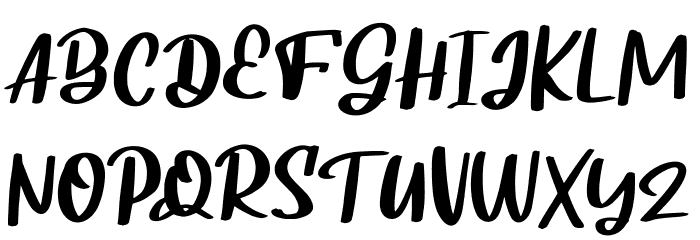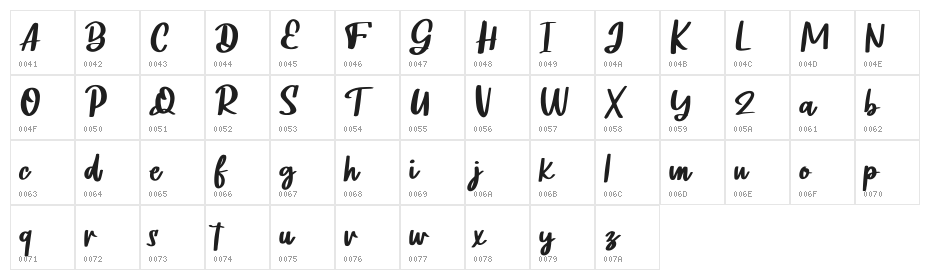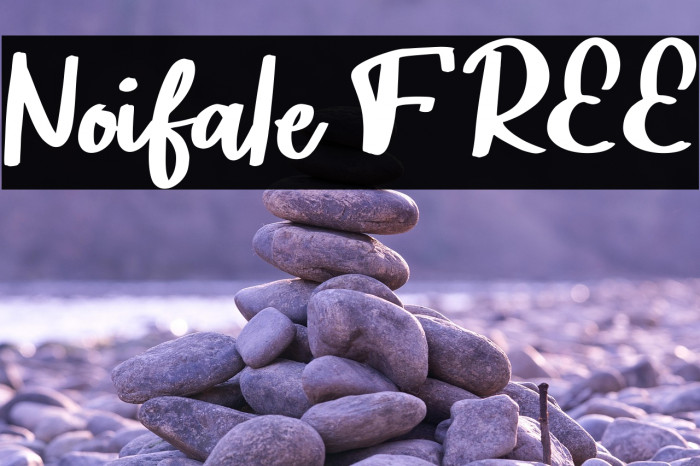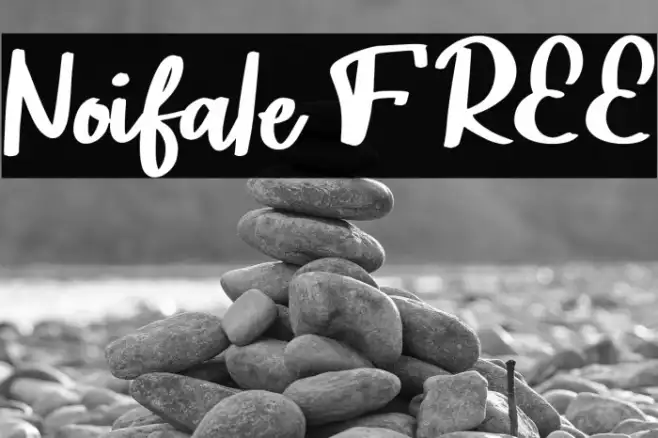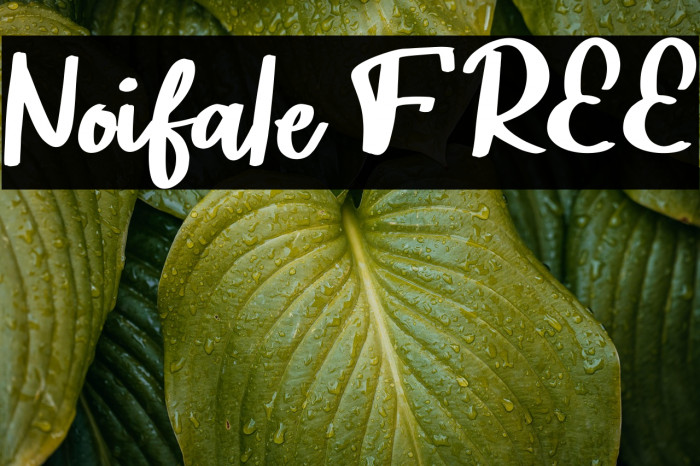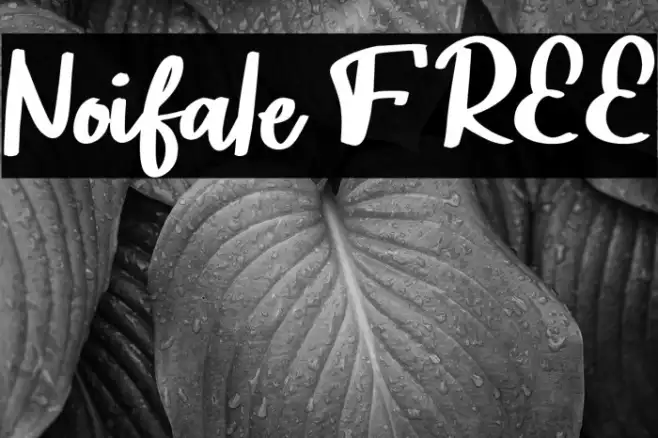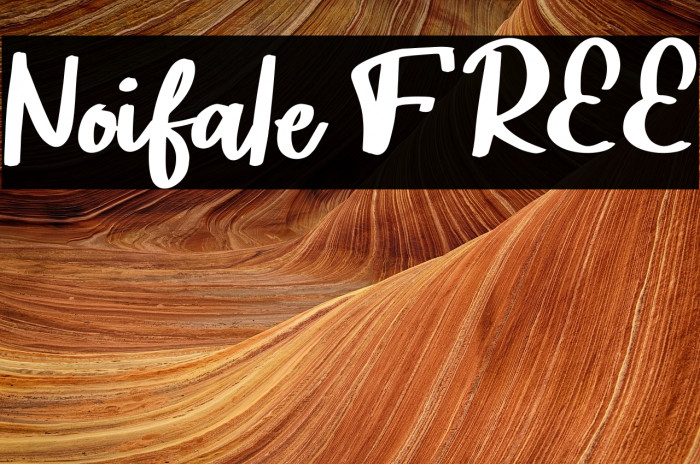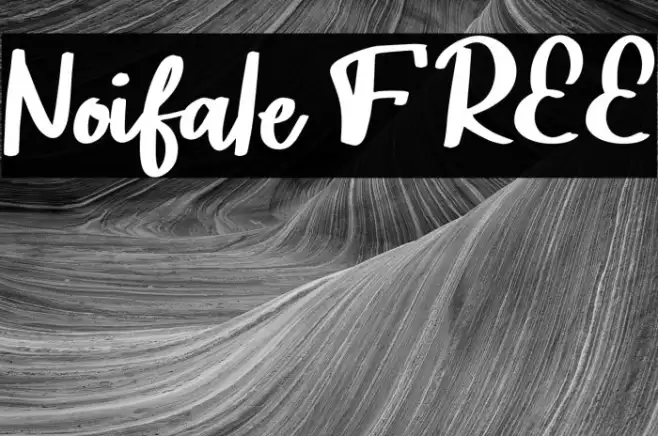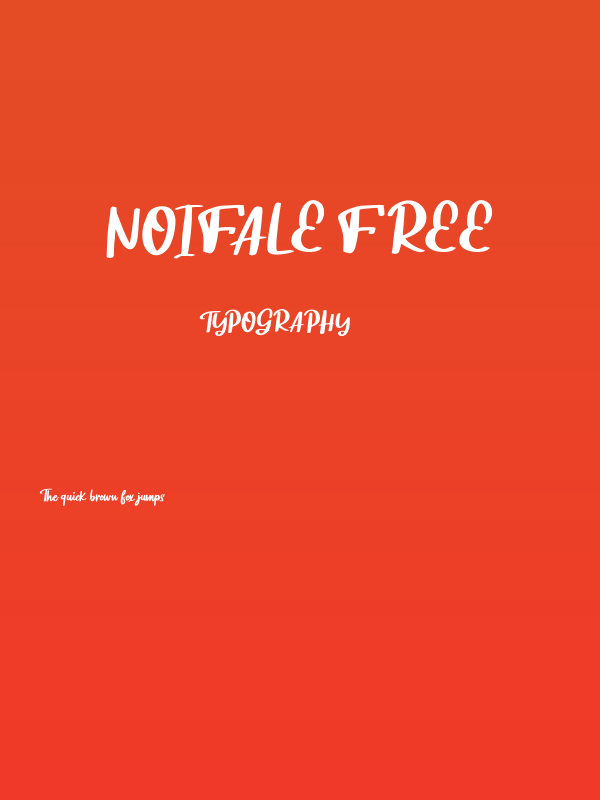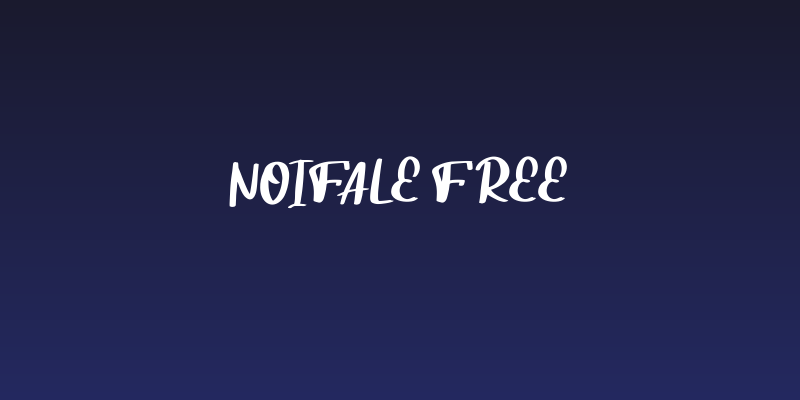
Noifale FREE Font
Noifale FREE Description
This font features a bold and expressive script style, characterized by its fluid and dynamic strokes. The uppercase letters exhibit a playful yet elegant flair, with each character maintaining a consistent flow that suggests movement and energy. The lowercase letters complement the uppercase with a similar style, offering a cohesive look across different text compositions. The numbers and special characters are designed to match the overall aesthetic, ensuring versatility in various design contexts. This font's unique style makes it suitable for creative projects that require a touch of personality and charm.